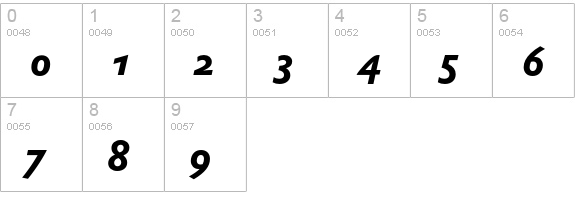
DTLProkyonST Bold Italic is a strong, high-contrast, italic variant in the DTLProkyonST typeface family \xE2\x80\x94 well suited to headlines, attention-grabbing titles, and strong calls-to-action.
The DTLProkyonST Bold Italic font is a bold and dynamic typeface that exudes a sense of modernity and sophistication. Its sleek and stylish design makes it perfect for grabbing attention and adding a touch of elegance to any design project. The bold italic style of this font gives it a unique and eye-catching appearance that is sure to make a statement. What sets the DTLProkyonST Bold Italic font apart is that it is available for free download at FontsMarket.com. This means that you can easily access this high-quality font without any cost, making it a valuable addition to your font collection. Whether you're working on a poster, website, logo, or any other design project, the DTLProkyonST Bold Italic font is sure to elevate your work with its bold and striking presence. With its clean lines, sharp angles, and modern aesthetic, the DTLProkyonST Bold Italic font is a versatile choice for a wide range of design applications. Its bold and italicized characters add a touch of flair and personality to your text, making it stand out and capture the attention of your audience. Download the DTLProkyonST Bold Italic font today and take your designs to the next level with this stylish and impactful typeface.